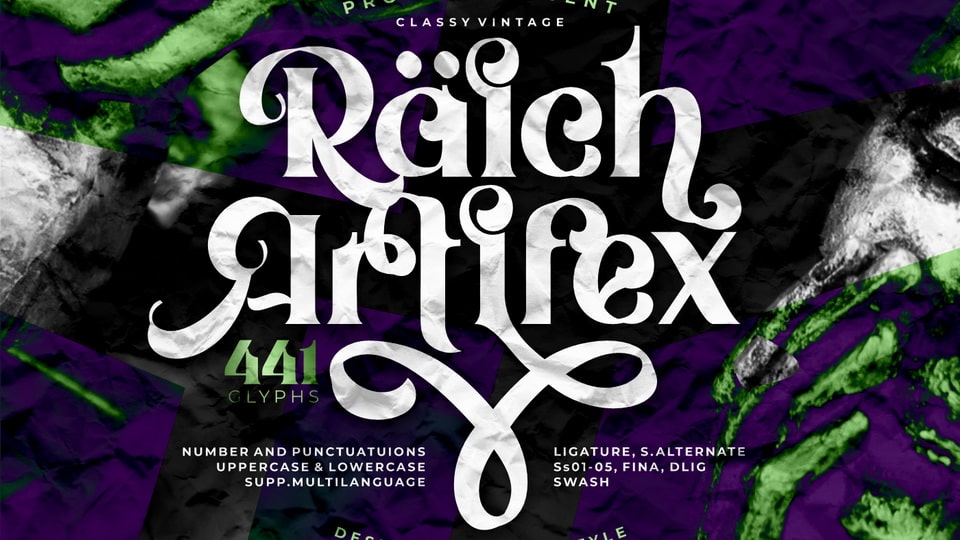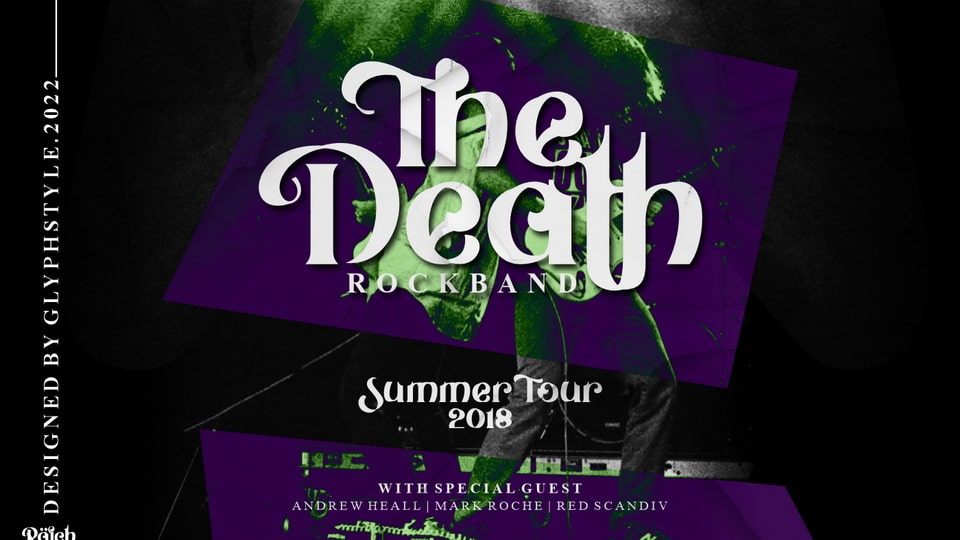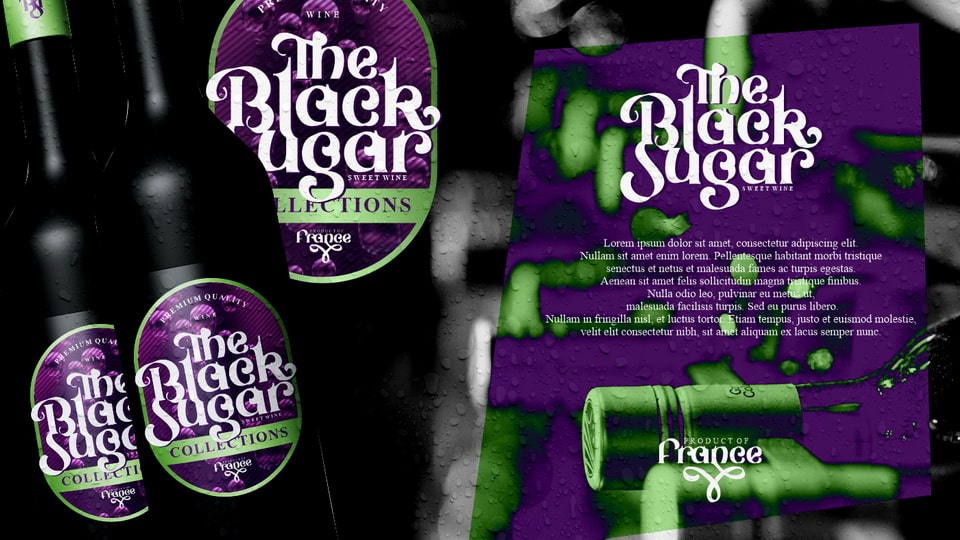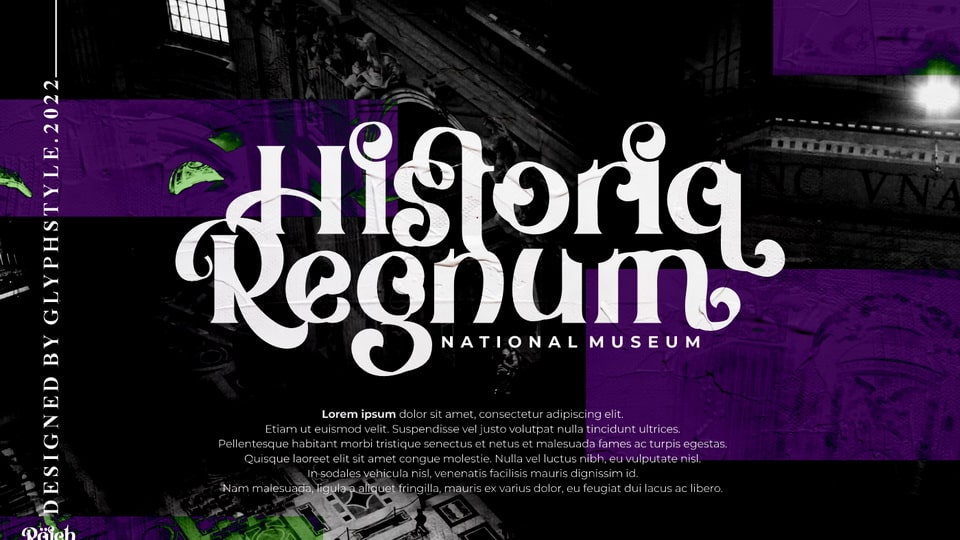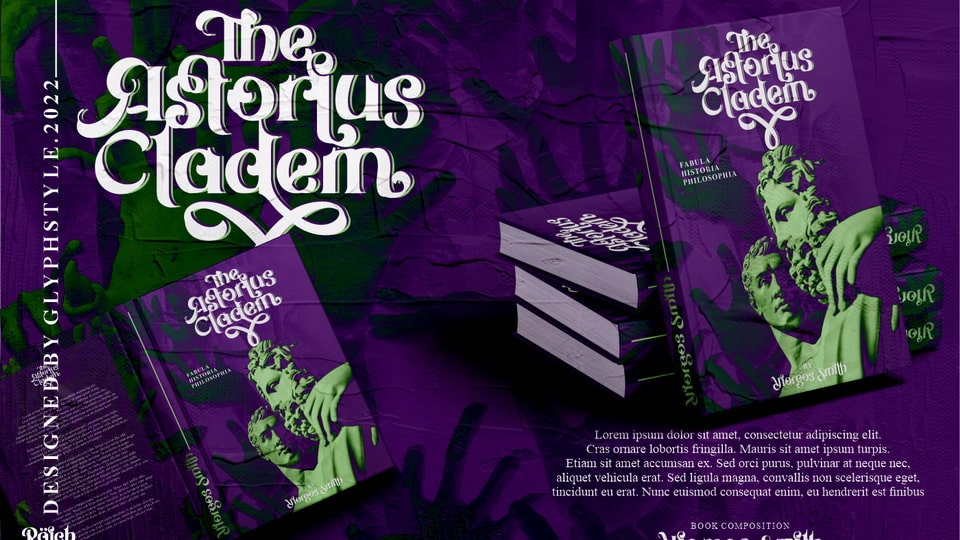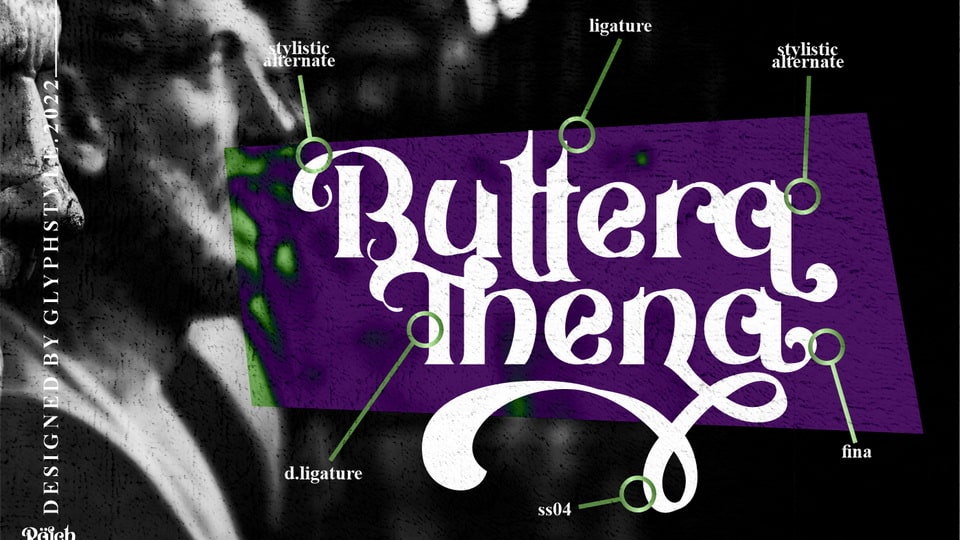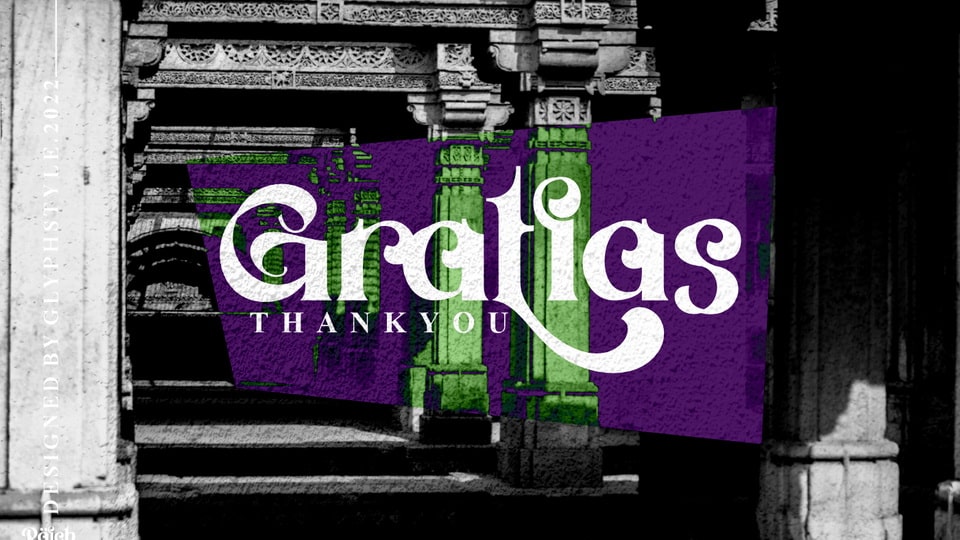
Raich Artifex is a font with a classic look that takes us back to the royal era. Serif font with a classic stylist shape and has a variety of letter shapes to beautify the writing (alternate, Ss01, etc.). A serif font with a thick classic feel.